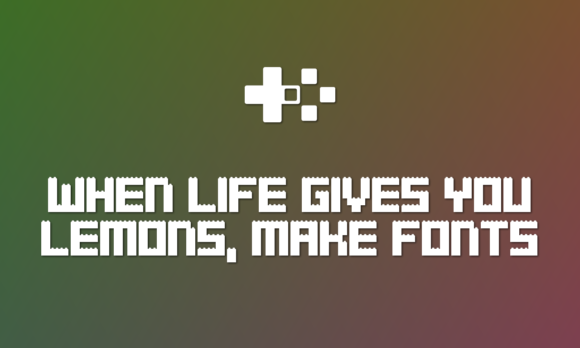
Introduction to Clicky Bricks Font
Have you ever found yourself brainstorming ideas for a creative project, only to be stumped by the perfect font to bring your vision to life? I know I have! That’s why I’m excited to share with you a hidden gem in the world of display fonts: the Clicky Bricks Font. This fun and friendly font is a game-changer for designers looking to add a touch of joy to their work.
Whether you’re designing a cartoon, creating a children’s game, or simply need a font that pops on a transparent background, the Clicky Bricks Font is a high-quality design resource that’s sure to impress. And the best part? It’s available for free download, making it an invaluable asset for designers of all levels.
Key Features of Clicky Bricks Font
- High-quality font designed specifically for creative projects, offering a unique and modern aesthetic.
- Transparent background option, allowing for seamless integration with various design elements and backgrounds.
- Each font character is carefully crafted to provide a consistent and visually appealing design experience.
- Perfect for use in logos, branding, and other creative projects where a distinctive and modern font is required.
Honest Review: Clicky Bricks Font
I recently stumbled upon the Clicky Bricks Font and I have to say it’s been a game-changer for my creative projects. This font is perfect for adding a playful touch to any design.
Here are some of the things I love about the Clicky Bricks Font:
- ✨ Unique and quirky design that’s perfect for adding personality to your designs
- ✨ High-quality vector graphics that make it easy to resize without losing any detail
- ✨ Transparent background, making it easy to layer over other design elements
However, I do have a few minor complaints:
- ⚠️ Limited character set, which can make it difficult to use for longer blocks of text
- ⚠️ May not be suitable for professional or formal design projects due to its playful nature
Overall, I’m really impressed with the Clicky Bricks Font. It’s a fantastic design resource that’s perfect for adding a creative touch to your projects. Just be aware of its limitations and use it in context.
For the best results, use the Clicky Bricks Font in conjunction with a high-contrast background. This will help the font stand out and add visual interest to your design.
The Clicky Bricks Font is perfect for a variety of design projects, including logos, business cards, and social media graphics. Its unique and eye-catching design makes it ideal for creative projects that need a little extra flair.